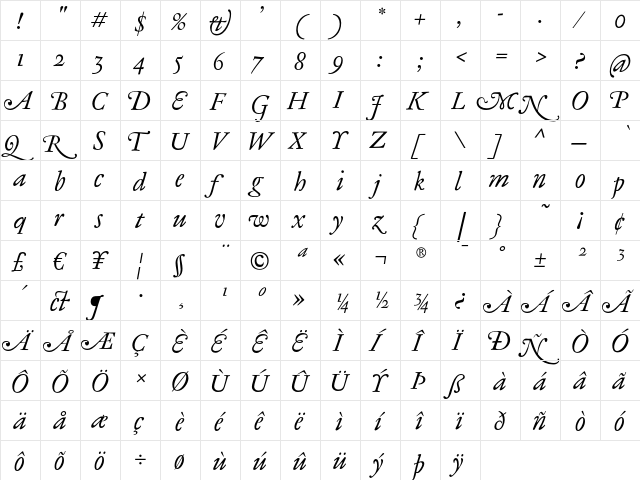
AntiqueAncienne Italic
Design Context for AntiqueAncienne Typeface
AntiqueAncienne has the warm character of retro typography — evoking diners, record sleeves, and the golden age of print advertising. Its italic angle brings a sense of urgency and motion to the letterforms.
Ideal for diner signage, record shop branding, 70s/80s-themed projects, and heritage product labels.
Font Pairing: Combine AntiqueAncienne with a simple slab or neutral sans — period-accurate companions reinforce the vintage feel without competing for attention.
Pro Tip: Lean into AntiqueAncienne's period character by pairing it with aged paper textures, muted colour palettes, and vintage illustration styles.